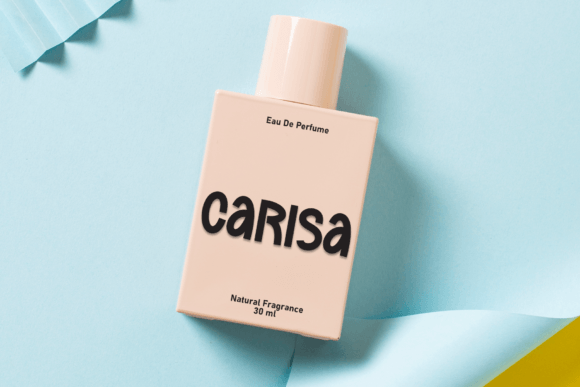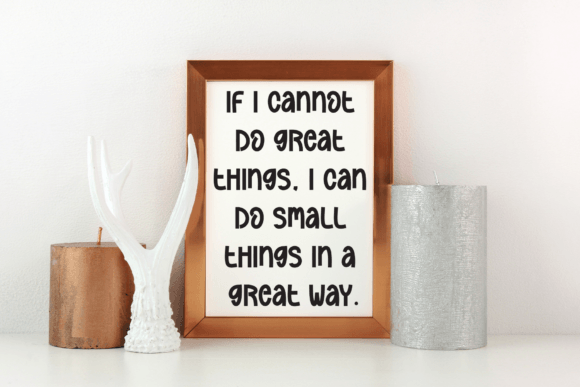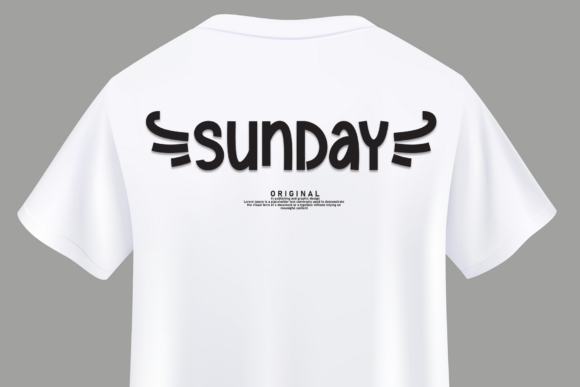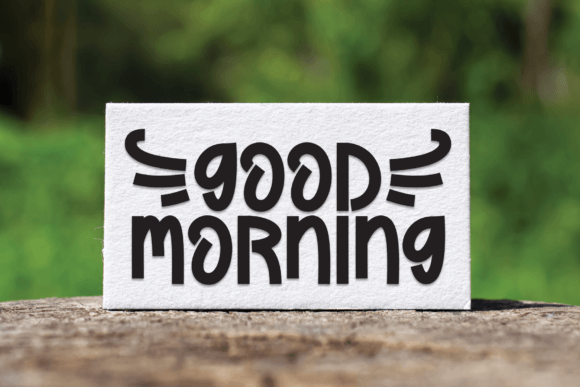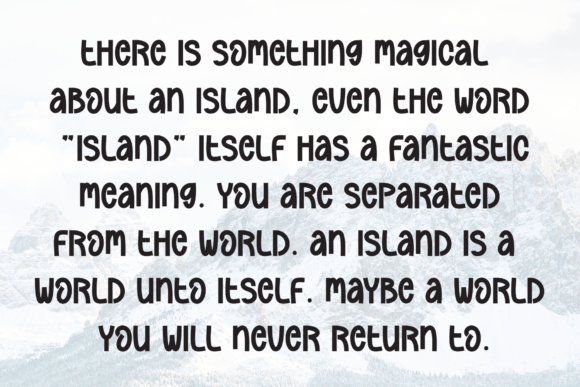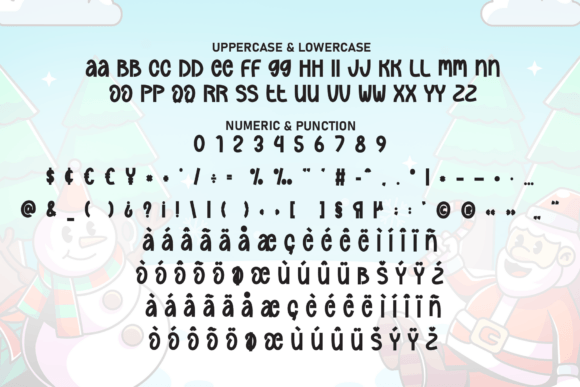
Introducing the Comic Christmas Font: A Delightful and Warm-Hearted Handwritten Display Font
Are you looking for a font that can add a touch of magic to your designs? Look no further than the Comic Christmas Font, a charming and entertaining handwritten display font that is perfect for a variety of creative projects. This delightful font is designed to bring joy and whimsy to your designs, making it an ideal choice for designers and crafters who want to add a personal touch to their work.
A Font that Combines Charm and Entertainment
The Comic Christmas Font is a unique and captivating typeface that seamlessly integrates charm and entertainment into each letter. Its playful and sophisticated design makes it perfect for a wide range of applications, from wedding invitations and greeting cards to posters, packaging, and more. Whether you’re a designer looking for a font that can add a touch of personality to your work or a crafter seeking a unique and eye-catching font for your DIY projects, the Comic Christmas Font is an excellent choice.
Perfect for Adding a Touch of Whimsy to Your Designs
One of the standout features of the Comic Christmas Font is its ability to effortlessly embrace joy and whimsy. Its delightful and warm-hearted design makes it perfect for creating designs that are fun, playful, and engaging. Whether you’re designing a wedding invitation, a greeting card, or a poster, this font is sure to add a touch of personality and charm to your work.
Key Features of the Comic Christmas Font
- Handwritten display font: The Comic Christmas Font is a beautiful handwritten display font that is perfect for adding a personal touch to your designs.
- Playful and sophisticated design: This font combines playfulness and sophistication, making it perfect for a wide range of creative projects.
- Delightful and warm-hearted: The Comic Christmas Font is designed to bring joy and whimsy to your designs, making it perfect for creating engaging and fun designs.
- Perfect for wedding invitations and greeting cards: This font is ideal for creating beautiful and unique wedding invitations and greeting cards.
Why Choose the Comic Christmas Font?
There are many reasons why the Comic Christmas Font is an excellent choice for designers and crafters. Here are just a few:
- Unique and eye-catching: This font is sure to grab attention and add a touch of personality to your designs.
- Versatile: The Comic Christmas Font can be used for a wide range of creative projects, from wedding invitations and greeting cards to posters and packaging.
- High-quality design: The Comic Christmas Font is designed to high standards, ensuring that your designs look professional and polished.
Tips for Using the Comic Christmas Font
Here are a few tips for using the Comic Christmas Font in your designs:
- Use it for headings and titles: This font is perfect for headings and titles, where its playful and sophisticated design can really shine.
- Pair it with other fonts: The Comic Christmas Font can be paired with other fonts to create a unique and eye-catching design.
- Experiment with different colors: This font looks great in a variety of colors, so don’t be afraid to experiment and find the perfect color for your design.
The Comic Christmas Font is a delightful and warm-hearted handwritten display font that is perfect for adding a touch of magic to your designs. Its playful and sophisticated design makes it ideal for a wide range of creative projects, from wedding invitations and greeting cards to posters and packaging. Whether you’re a designer or a crafter, this font is sure to bring joy and whimsy to your work.